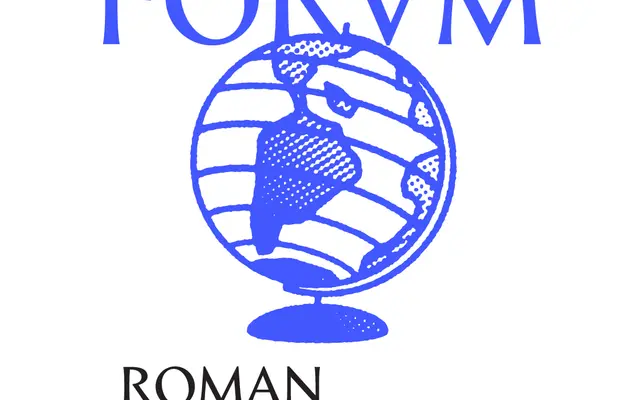
FORVM
Coppers and Brasses · Étienne Aubert Bonn · 2024
FORVM specimen from Coppers and Brasses
A two-style family by Étienne Aubert Bonn drawing from two distinct periods of Roman inscribed letterforms, one with near-zero contrast and open terminals, the other with controlled contrast and flared endings.
FORVM Lineal looks to the earliest Roman letter cutting, where contrast barely registers and endings splay open, with alternate characters that retain traces of Greek ancestry. FORVM Roman takes a later Imperial model, taming contrast and treating serifs as flared terminals rather than bracketed wedges, giving it classical authority with a quieter finish than Trajan-derived faces. The two styles are designed to work in tandem, their spacing rhythms calibrated to complement one another across centuries of typographic history.
FORVM Roman draws from later Imperial Roman inscriptions with flared terminals rather than conventional serifs, while FORVM Lineal references early Roman letterforms with near-zero contrast and open endings, placing the pair in classical Roman revival territory.